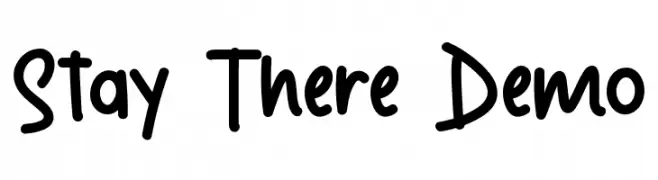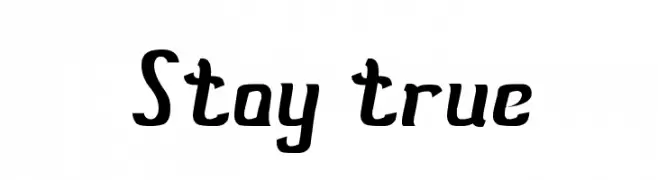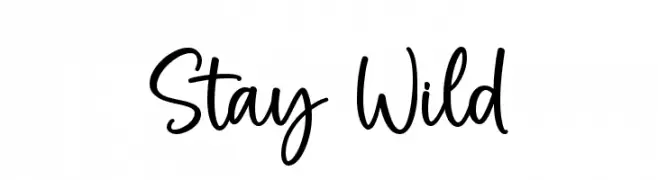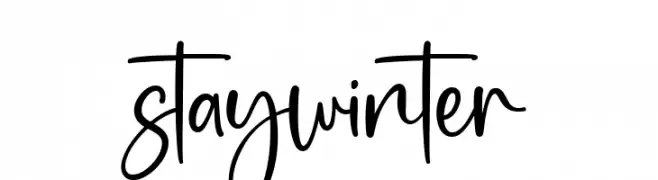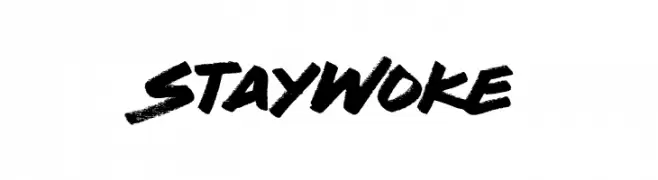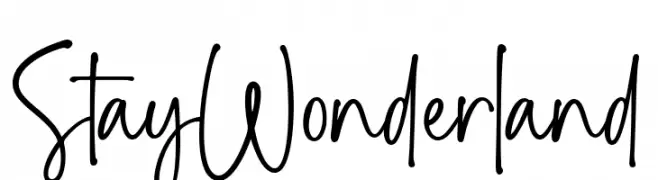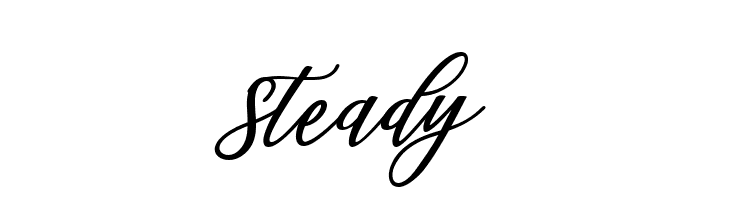
Casual, rounded handwritten font with a friendly vibe.
A dynamic, slightly slanted font with bold, condensed uppercase and playful lowercase characters.
Playful handwritten script font.
A playful, bold, and handwritten-style font with strong uppercase and elegant lowercase letters.
A playful, casual handwritten font with flowing, irregular letterforms.
A bold, brush-style font with dynamic, hand-painted strokes.
A playful, whimsical handwritten font with tall, narrow letters and irregular strokes.
A bold, cursive font with a playful and energetic style.
A playful, handwritten font with tall, narrow letters and a casual style.